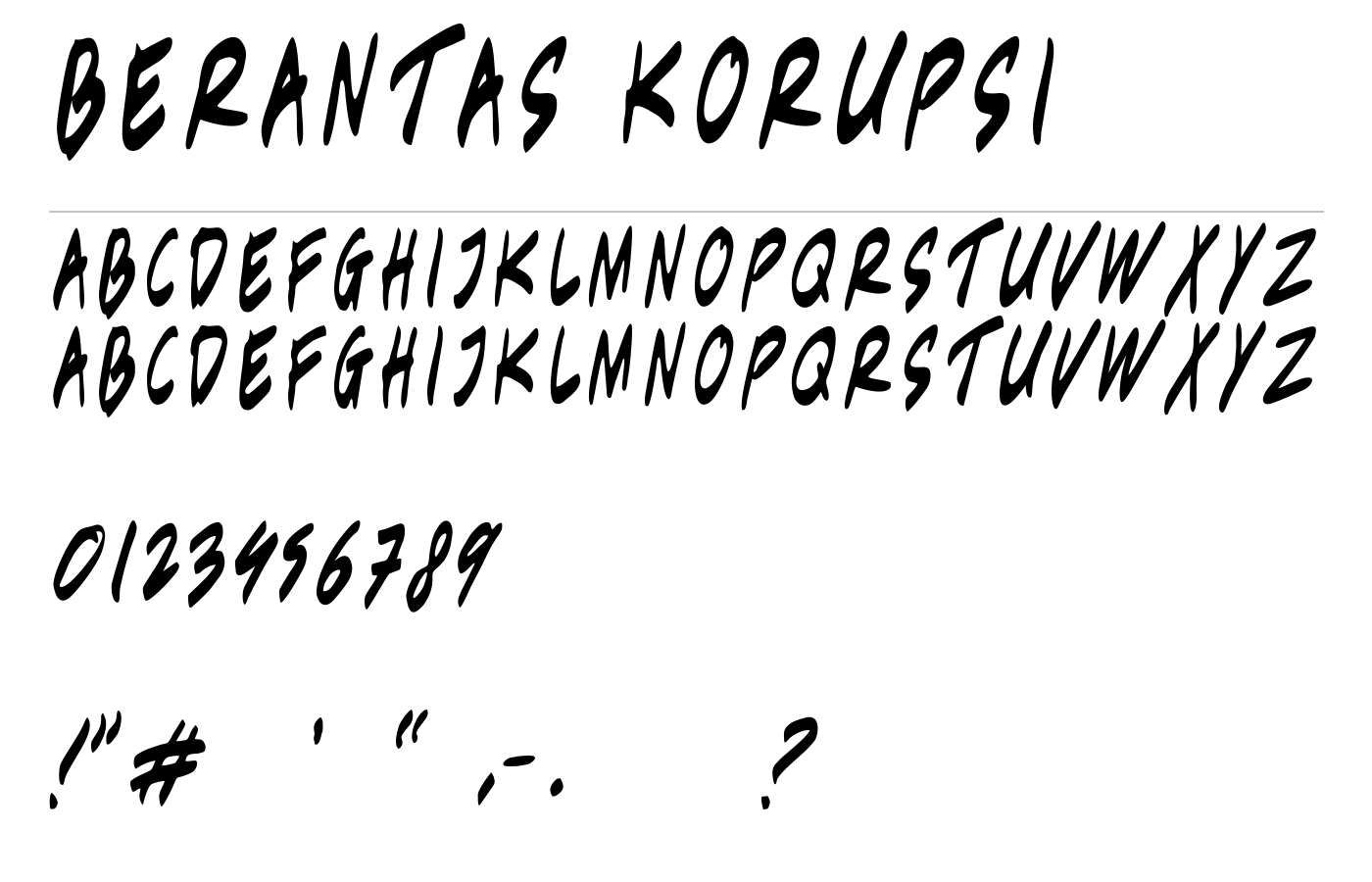
Berantas Korupsi is a bold, expressive handwritten script font with an energetic and slightly rough texture, giving it a dynamic and personal feel. Its tall, narrow letterforms and lively irregular strokes make it perfect for attention-grabbing headlines or creative projects that want to convey urgency and authenticity. This font works well in posters, branding, and designs where a strong, informal, and impactful voice is needed.
Berantas Korupsi Font
About Berantas Korupsi Font